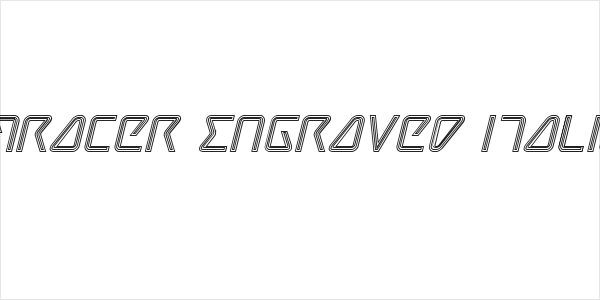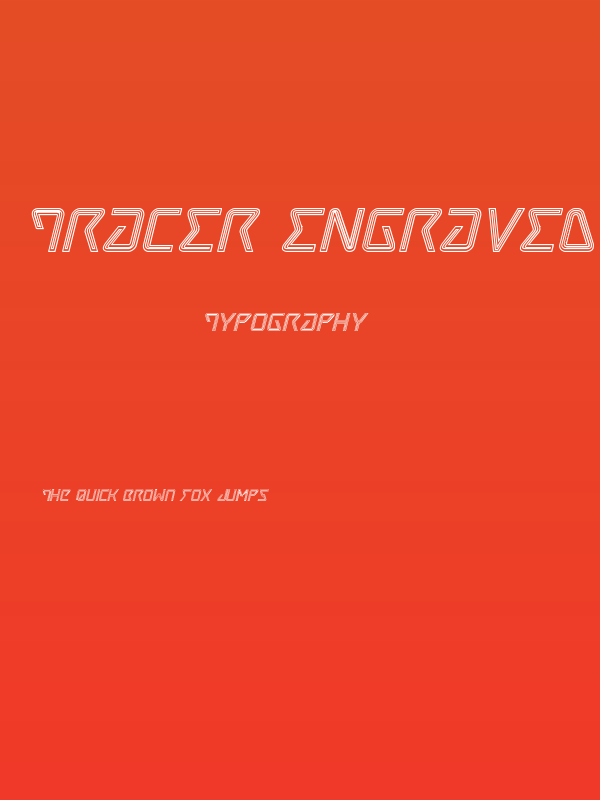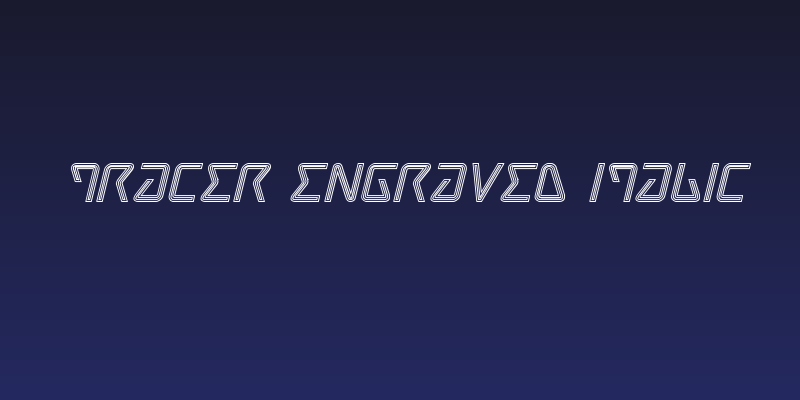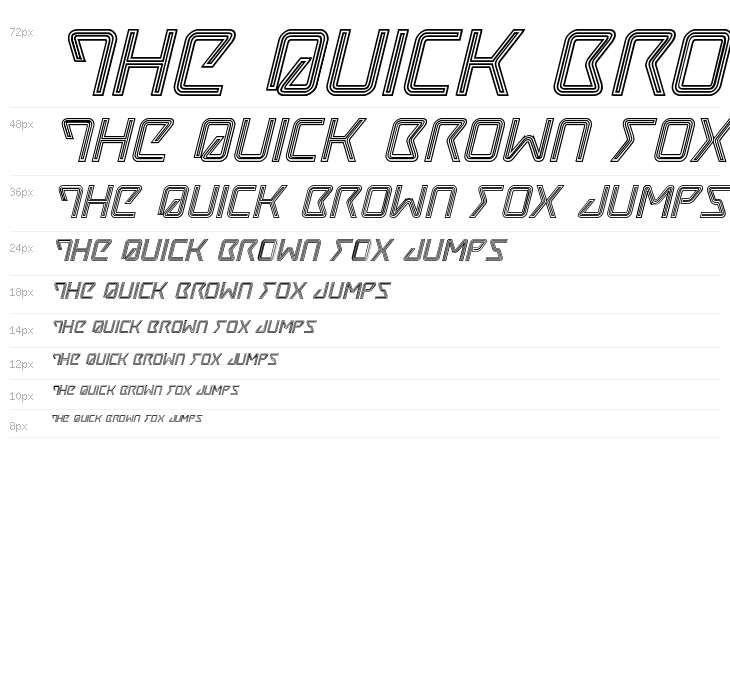
Tracer Engraved Italic Font
Tracer Engraved Italic Description
This font features a futuristic and dynamic design with an engraved, outlined style. The characters are italicized, giving a sense of motion and speed. Each letter is composed of multiple parallel lines, creating a layered effect that adds depth and dimension. The geometric shapes are consistent throughout the alphabet, numbers, and special characters, maintaining a cohesive look. This font is ideal for projects that require a modern and tech-inspired aesthetic, such as digital interfaces, video game titles, or sci-fi themed designs.
| Proposed Projects | Ideal for digital interfaces, video game titles, sci-fi themes, and tech-inspired designs. |